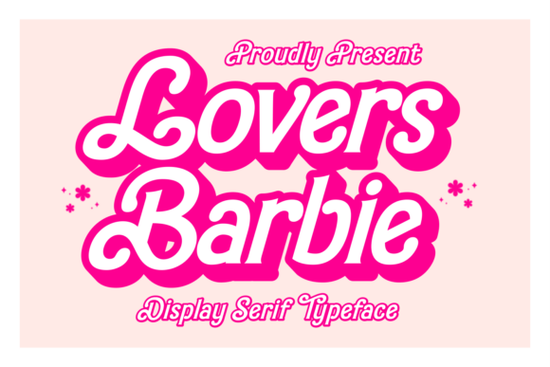
If you're looking for a retro-inspired display typeface that feels playful, bold, and full of personality, the Lovers Barbie Font is worth a close look. This handcrafted font leans into a candy-colored, maximalist aesthetic that works beautifully for children's products, party invitations, T-shirt designs, and social media graphics. Whether you sell on print-on-demand platforms or create digital planners, this typeface brings a distinct retro charm that stands out without trying too hard.
What Makes This Font Feel So Nostalgic?
The bubbly letterforms and wavy accents are clearly inspired by 1970s typography trends. There's a groovy, bohemian quality to each character that immediately sets a warm, inviting mood. Think of old candy shop signage, vintage concert posters, or retro sticker sheets that's the energy this font carries. It taps into the current wave of bold, personality-driven display styles that many designers are gravitating toward right now.
If you've been experimenting with Lovers Barbie in your projects, you'll notice it pairs well with clean sans-serif fonts for contrast. The decorative swashes and vintage letterforms do the heavy lifting, so surrounding text can stay simple and readable.
Where Does This Font Work Best?
This is a display font, which means it's designed for headlines, logos, and short text not body copy. Here are some practical uses where it really shines:
- Children's product packaging toy boxes, candy wrappers, party supply labels
- Birthday party invitations especially themed events with a colorful, playful vibe
- T-shirt and apparel design summer themes, retro merch, and boho-style prints
- Social media graphics YouTube thumbnails, Instagram stories, Pinterest pins
- Digital planners and stickers especially for planners with a whimsical or retro aesthetic
- Logos and branding for small businesses that want a fun, approachable identity
Sellers working with Wildberry or similar vibrant, expressive typefaces will find this fills a similar creative lane though its retro-Boho personality gives it a distinctly different flavor.
Does It Support Multiple Languages?
Yes. One of the practical strengths of this font is its multilingual support. If you sell products internationally or create content in languages beyond English, you won't run into missing characters as easily. This matters more than people realize, especially for print-on-demand sellers who list across different markets.
Fonts like Noby also offer that kind of flexibility, so if you're building a font library with global reach in mind, it's worth comparing your options side by side.
How Does It Compare to Other Retro Display Fonts?
The display font space is crowded, but not all retro fonts hit the same notes. Some lean gritty and distressed, while others go smooth and bubbly. Here's a quick comparison to help you choose:
- Lovers Barbie Font bubbly, candy-colored, 1970s Boho charm
- Jersey Retro Grunge rough, textured, athletic vintage feel
- Grunge-style typefaces in general work better for edgy or streetwear designs
- GotJack bold, punchy, with a street-art-inspired personality
Each serves a different mood. If your project needs warmth and whimsy over edge and attitude, the Lovers Barbie aesthetic is the stronger choice.
Is It Worth Adding to Your Font Collection?
If you regularly design for kids' products, party themes, summer campaigns, or retro branding, then yes this font fills a specific creative niche that's hard to replicate with more generic typefaces. The swashes and decorative details add visual interest without requiring extra design work on your end.
That said, it's a display font with a strong personality. It won't work for everything. Use it where it shines short, bold, expressive text and pair it with something neutral for longer copy.
Quick Checklist Before You Buy
- ✅ Think about your current projects does the retro-Boho style actually fit?
- ✅ Check the license to make sure it covers your intended use (commercial, POD, digital products)
If your creative work leans fun, colorful, and a little bit retro, this typeface deserves a spot on your shortlist. It's the kind of font that makes a design feel instantly more lively without you having to do much extra work.